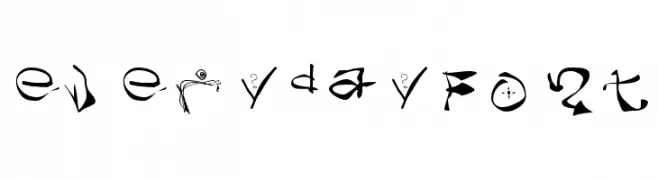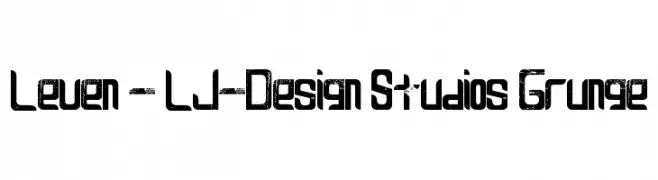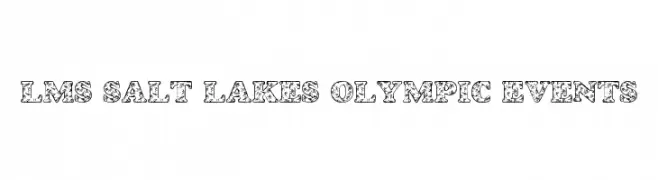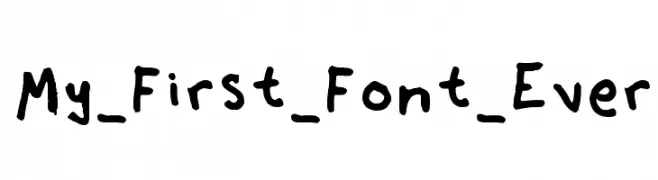
A highly decorative and artistic font with whimsical, abstract elements.
A bold, modern font with geometric and futuristic design elements.
A modern, geometric font with a hollow, outlined style and consistent stroke widths.
A bold, grunge-style font with a distressed, textured appearance.
A playful, informal handwritten font with a casual and approachable style.
A decorative font with an integrated ankh symbol in each character.
A bold, decorative font with an athletic and Olympic-inspired theme.
A bold, dynamic font with angular strokes and playful shapes, perfect for adventurous themes.